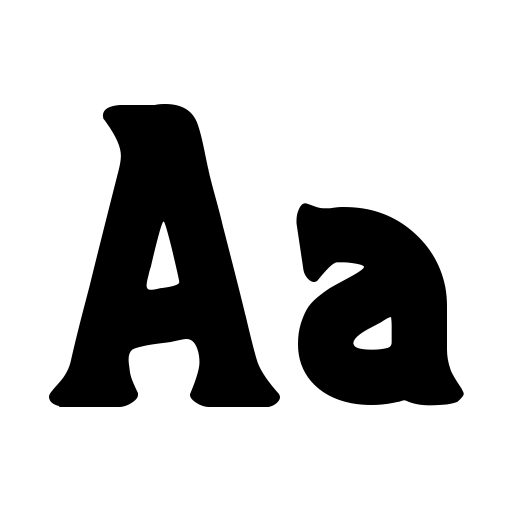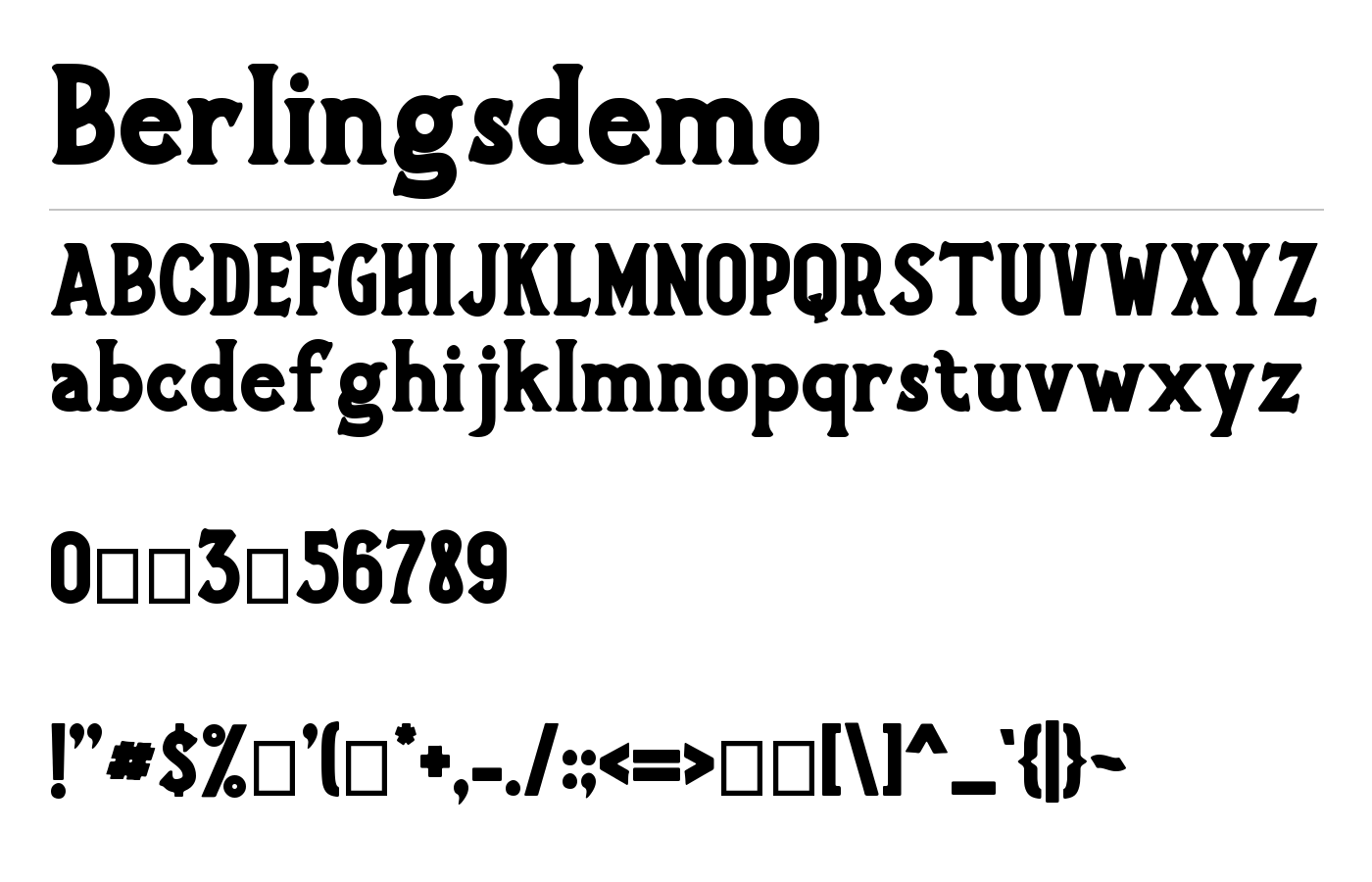
Berlingsdemo is a bold, slab serif font with a sturdy and slightly condensed appearance, featuring noticeable thick serifs and moderate stroke contrast. Its unique, almost playful letterforms with rounded edges and distinct details give it a vintage yet approachable character, making it ideal for headlines, branding, and editorial use where a strong, memorable impact is desired. This font blends classic serif tradition with a quirky personality, suitable for projects seeking a blend of professionalism and charm.
Berlingsdemo Font
About Berlingsdemo Font